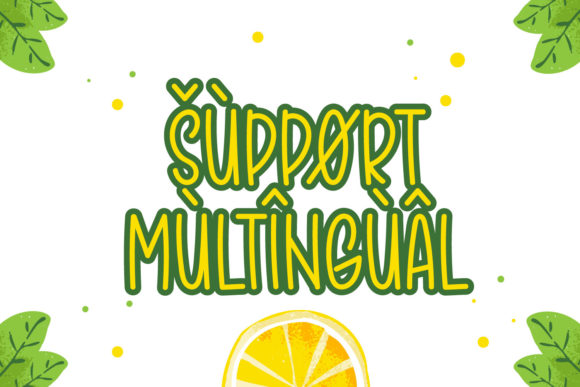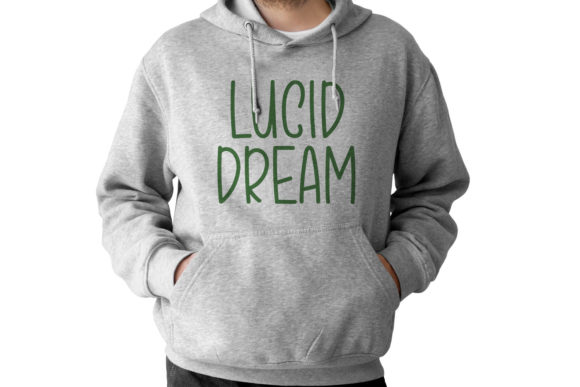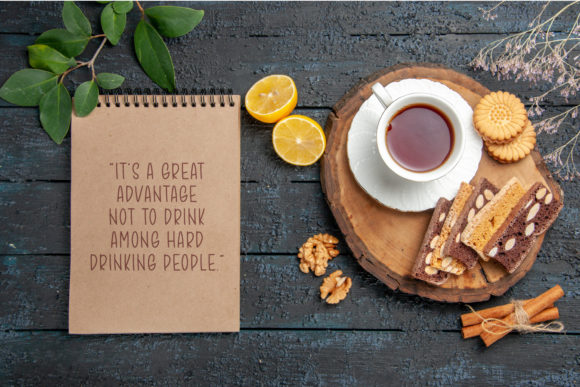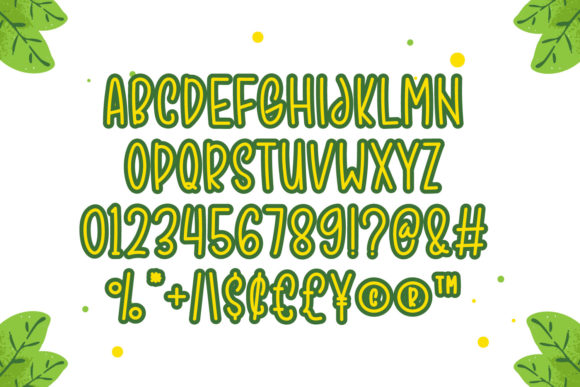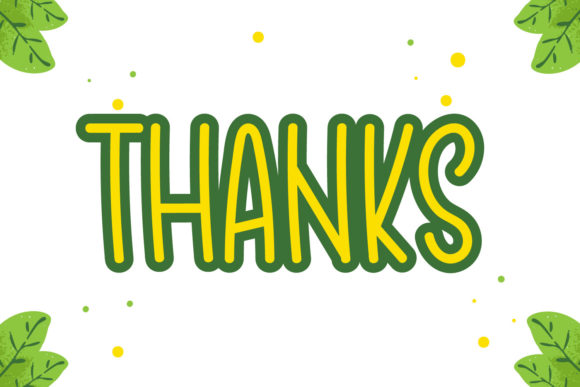
Introducing Fresh Juice Font: The Perfect Addition to Your Typography Collection
Are you tired of using the same old fonts in your designs? Do you want to add a touch of personality and whimsy to your creations? Look no further than Fresh Juice Font, a cute, quirky, and tall lettered handwritten font that’s sure to elevate your typography game.
What is Fresh Juice Font?
Fresh Juice Font is a unique and charming font that’s perfect for designers, crafters, and anyone looking to add a personal touch to their work. This font is a handwritten lettered font that’s tall, cute, and quirky, making it ideal for a wide range of projects, from branding and packaging to invitations and social media graphics.
Key Features of Fresh Juice Font
- Cute and Quirky Design: Fresh Juice Font has a playful and charming design that’s sure to capture the attention of your audience.
- Tall and Elegant Letters: The font features tall and elegant letters that are perfect for headlines, titles, and other display text.
- Handwritten Style: The font has a handwritten style that gives it a personal and authentic feel.
- Versatile: Fresh Juice Font can be used for a wide range of projects, from digital designs to print materials.
Why You Need Fresh Juice Font in Your Typography Collection
Fresh Juice Font is a versatile and charming font that can enhance any creation. Here are just a few reasons why you need this font in your typography collection:
- Adds Personality to Your Designs: Fresh Juice Font adds a touch of personality and whimsy to your designs, making them stand out from the crowd.
- Perfect for Branding and Packaging: The font’s unique design makes it perfect for branding and packaging projects, where you want to make a lasting impression on your customers.
- Great for Invitations and Social Media Graphics: Fresh Juice Font is also great for invitations, social media graphics, and other digital designs where you want to add a personal touch.
- Easy to Read: Despite its quirky design, Fresh Juice Font is easy to read, making it perfect for body text and other longer forms of text.
How to Use Fresh Juice Font in Your Designs
Using Fresh Juice Font in your designs is easy. Here are a few tips to get you started:
- Use it as a Headline Font: Fresh Juice Font is perfect for headlines and titles, where you want to make a bold statement.
- Pair it with Other Fonts: You can pair Fresh Juice Font with other fonts to create a unique and interesting typography combination.
- Experiment with Colors and Textures: Don’t be afraid to experiment with different colors and textures to add depth and interest to your designs.
Fresh Juice Font is a charming and versatile font that’s perfect for designers, crafters, and anyone looking to add a personal touch to their work. With its cute and quirky design, tall and elegant letters, and handwritten style, this font is sure to enhance any creation. Whether you’re working on a branding project, creating invitations, or designing social media graphics, Fresh Juice Font is a wonderful asset to have in your typography collection.